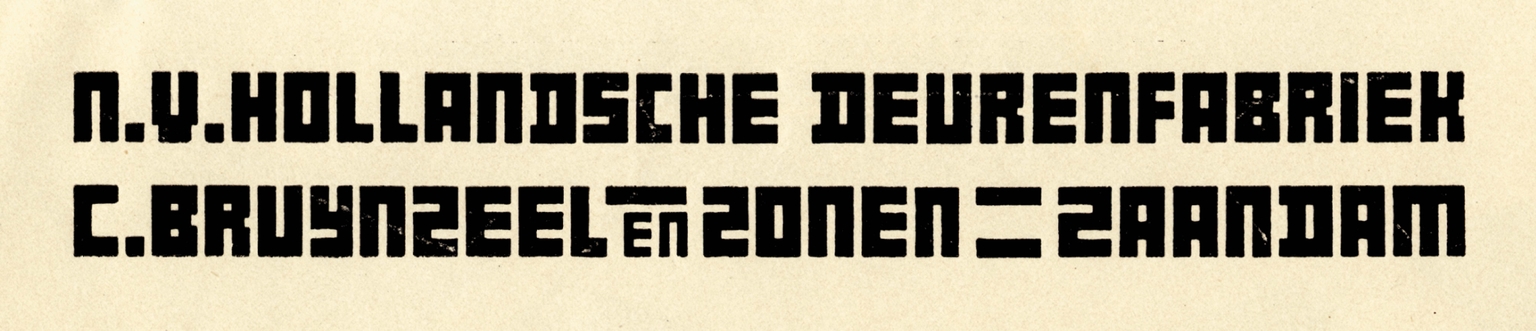
Vilmos
The Vilmos font is inspired by the alphabet used by Vilmos Huszár (1884–1960) on an envelope for the Dutch door factory C. Bruynzeel. Huszár was a Hungarian painter and designer who lived in the Netherlands, where he was one of the founding members of the De Stijl art movement. Influenced by Cubism and Futurism, he connected with other influential artists, including Piet Mondrian and Theo van Doesburg—both central figures in establishing De Stijl with Huszár in 1917. He also co-founded De Stijl magazine and designed the cover for its first issue.
Vilmos is Ramiro Espinoza’s interpretation of Huszár’s letters—a radical and distinctly Dutch typeface that, despite its abstract and curve-free forms, remains legible.
This font is well-suited for use in museum communications, architecture books, electronic music festivals, posters, artist websites, synthesisers branding, or any design project that calls for a bold and unconventional aesthetic.